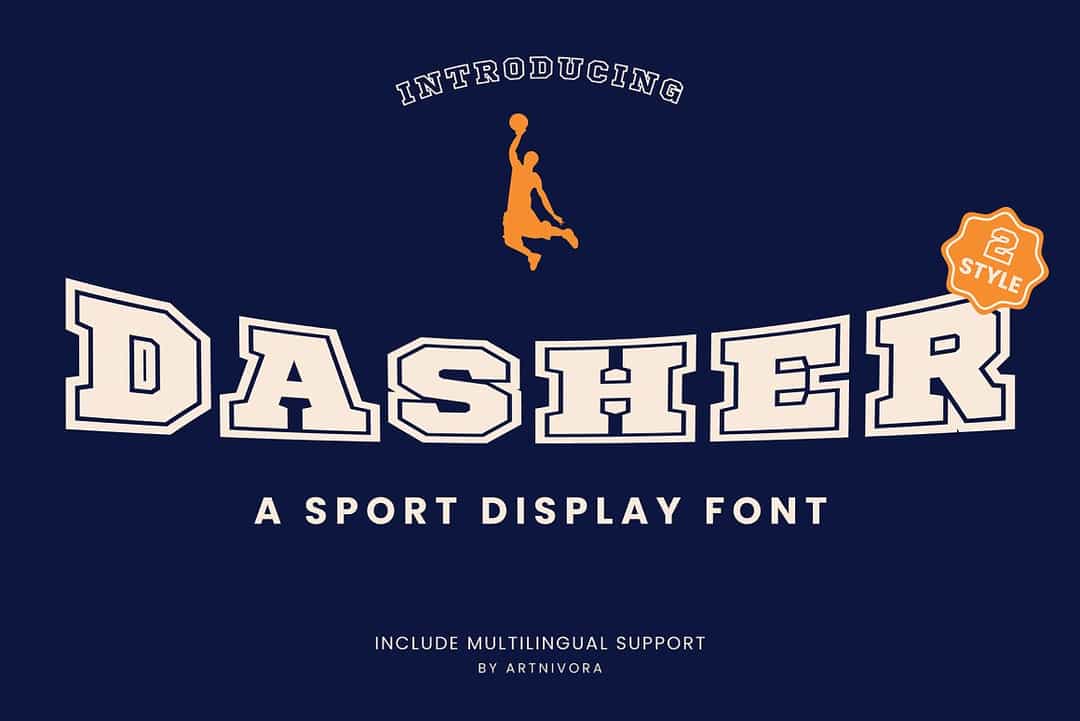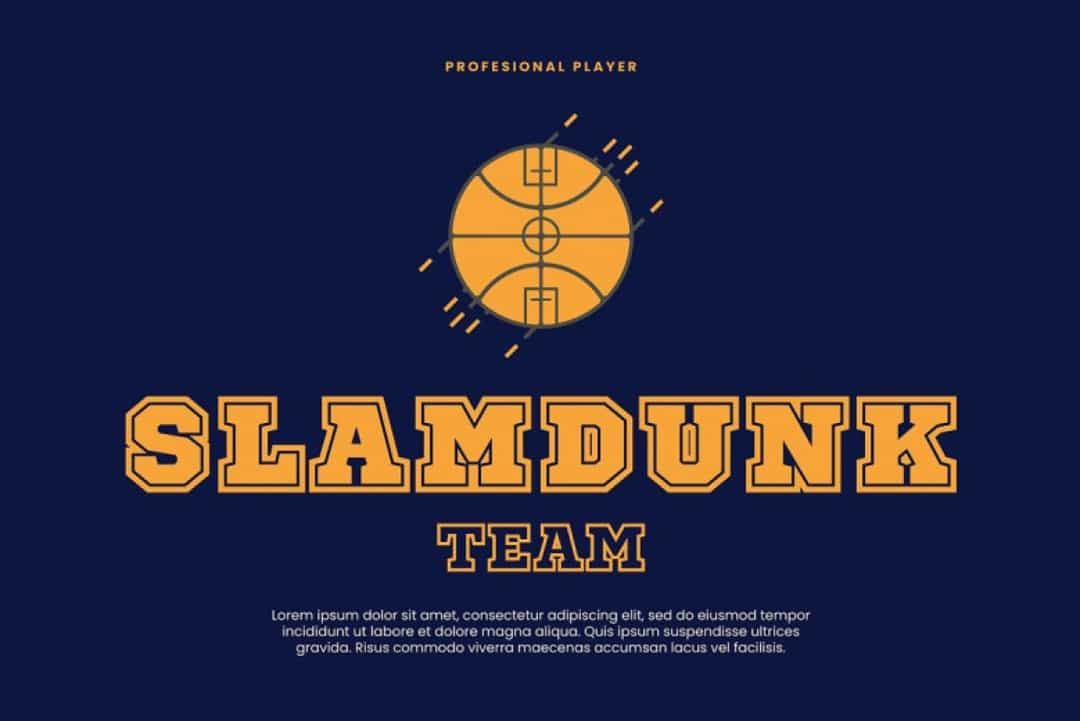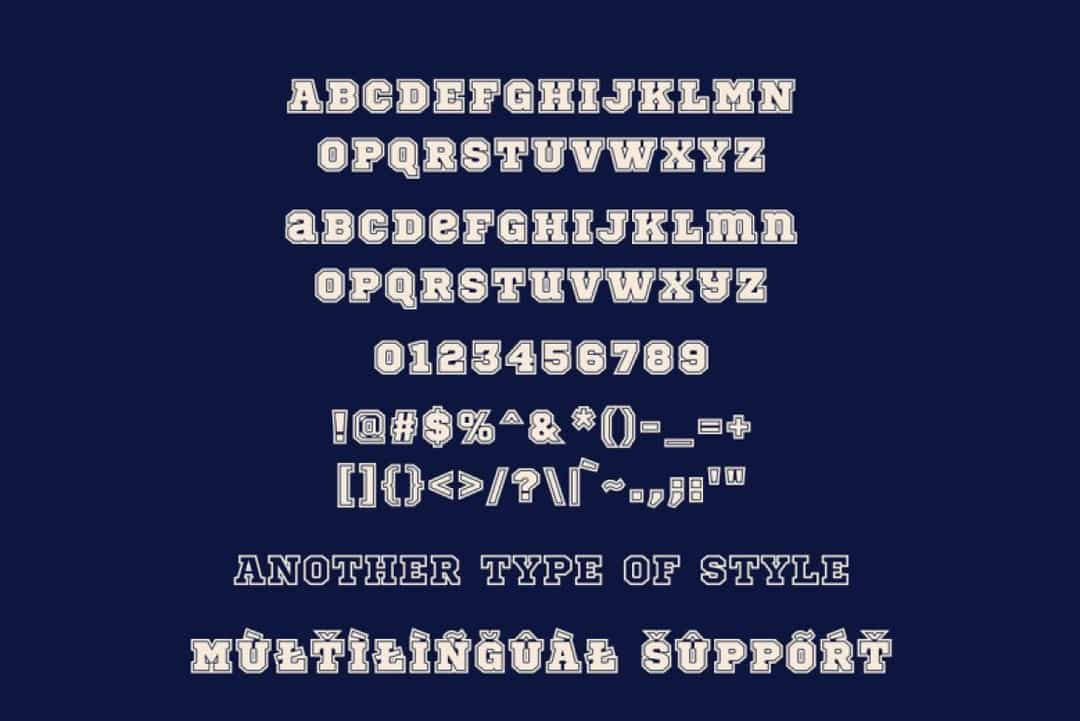
Dasher is an eye-catching display typeface for sports designs that captures all the action, excitement and speed of sports in an instant. Boasting bold letters that evoke feelings of vitality and vitality – making this font ideal for designs related to athleticism or fitness.